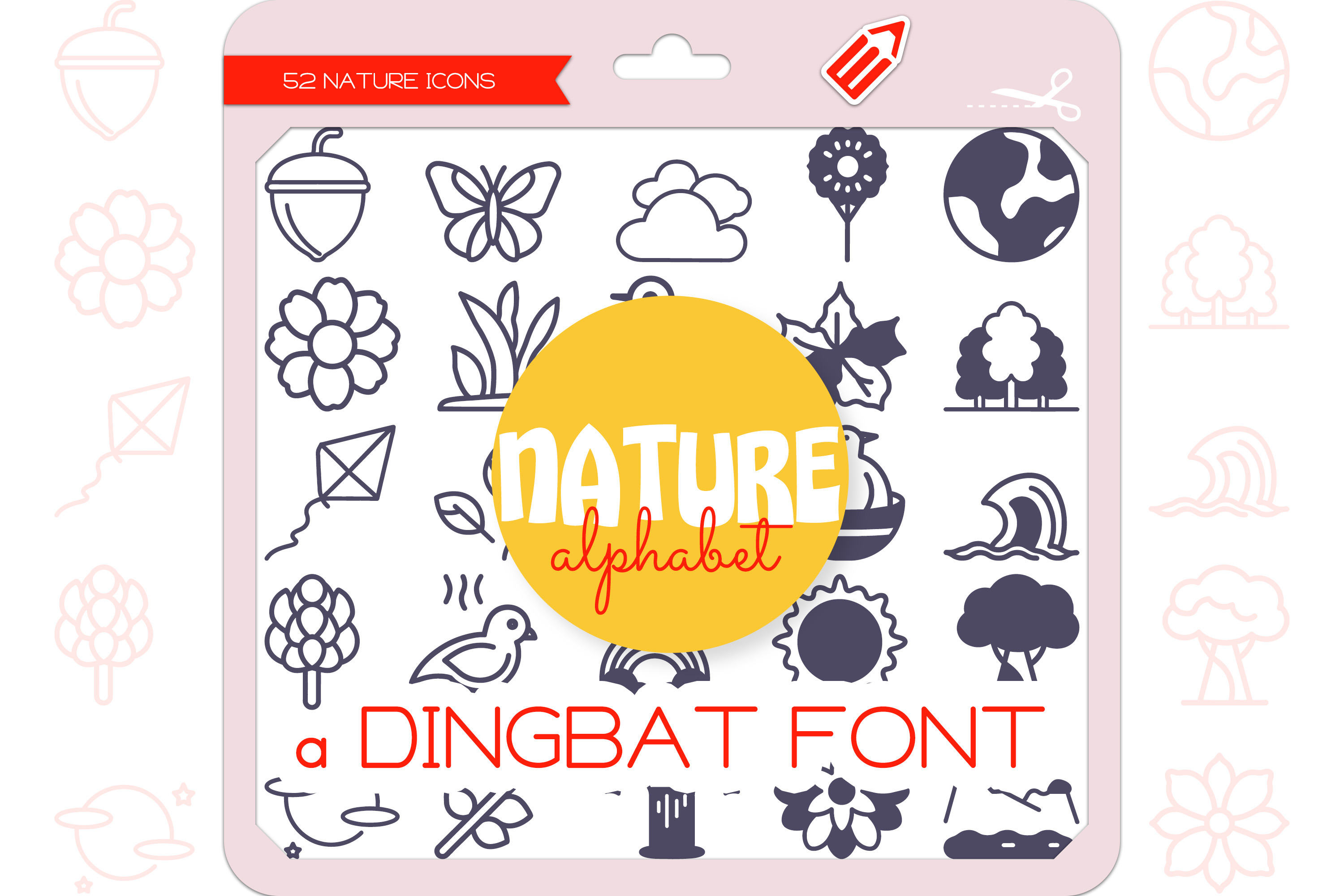
Nature Alphabet - Dingbat Font
Nature Alphabet is a unique and cute dingbat font, each Nature icon representing each letter of the alphabet from A to Z. It contains 52 icons in 2 styles (Outline & Filled-Outline). Add this font to your creative ideas and make your arts outstanding!
The Nature Alphabet Icons Dingbat Font featuring 26 A-Z things Acorn, Butterfly, Cloud, Dandelion, Earth, Flower, Grass, Hummingbird, Ivy, Jungle, Kite, Leaves, Mountain, Nest, Ocean, Pinecone, Quail, Rainbow, Sun, Tree, Universe, Vine, Waterfall, Xeranthemum, Yellowstone, Zinnia